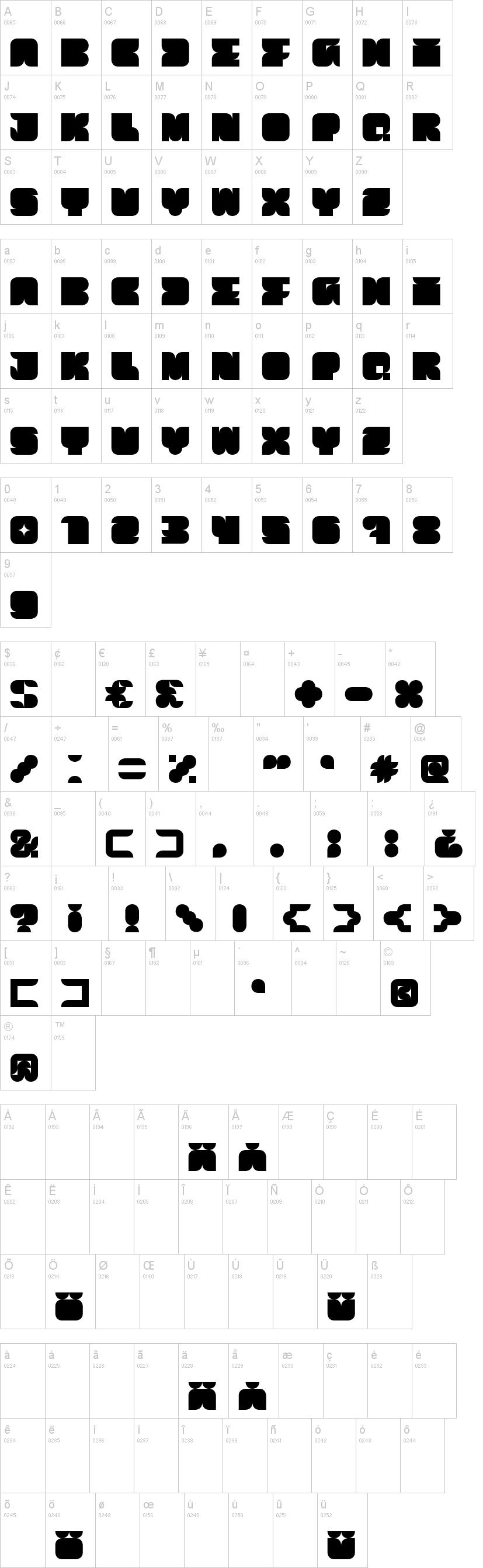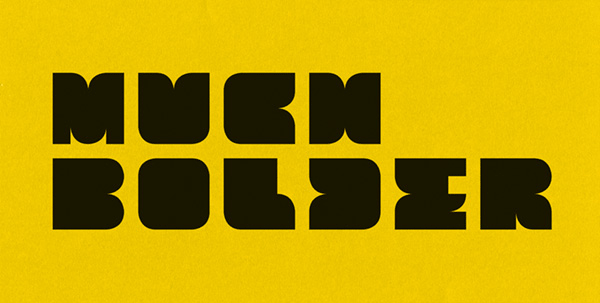
Шрифт Much Bolder
So you want some fatty monospaced typeface for your design? Allright, here you go. This really heavy and minimalistic typeface might be your choice. It is totally free, but I am more than happy to have any donations which will help me releasing more free fonts in the future.